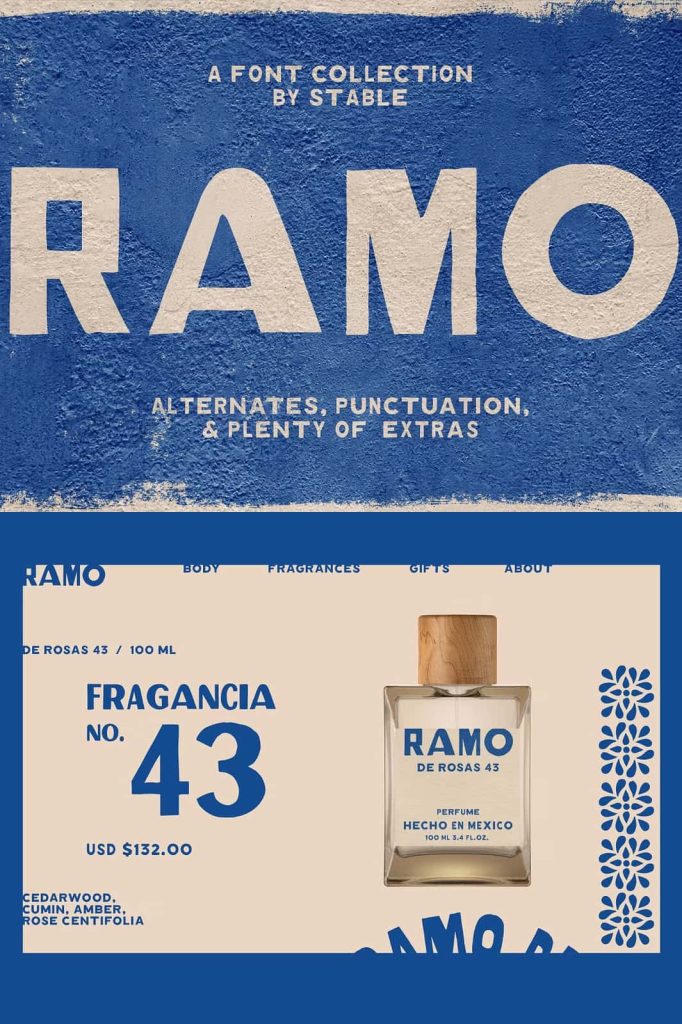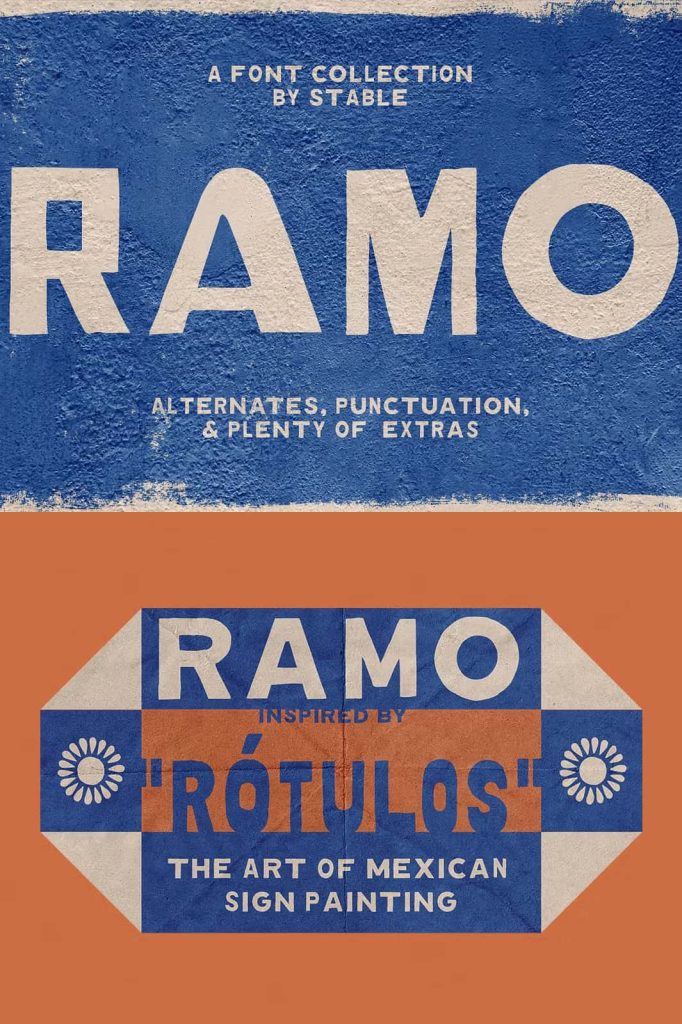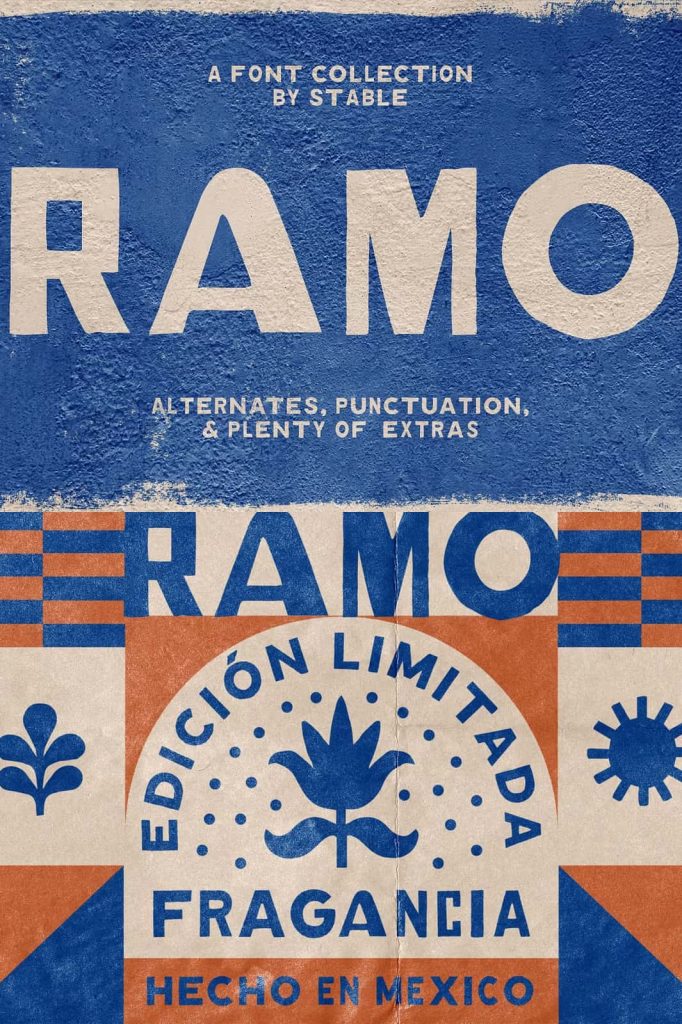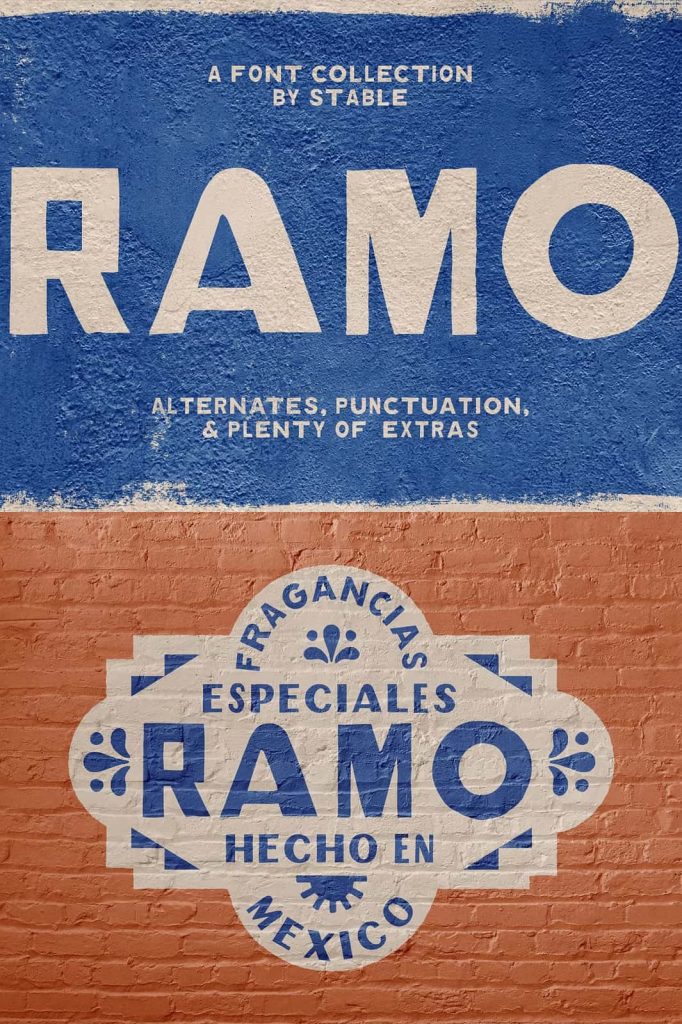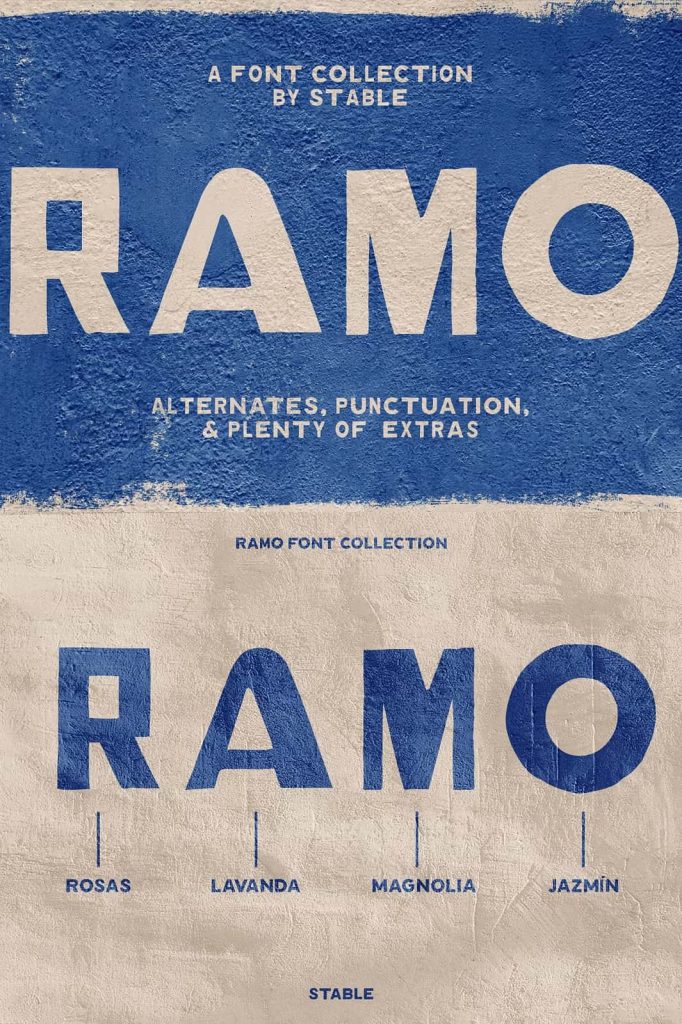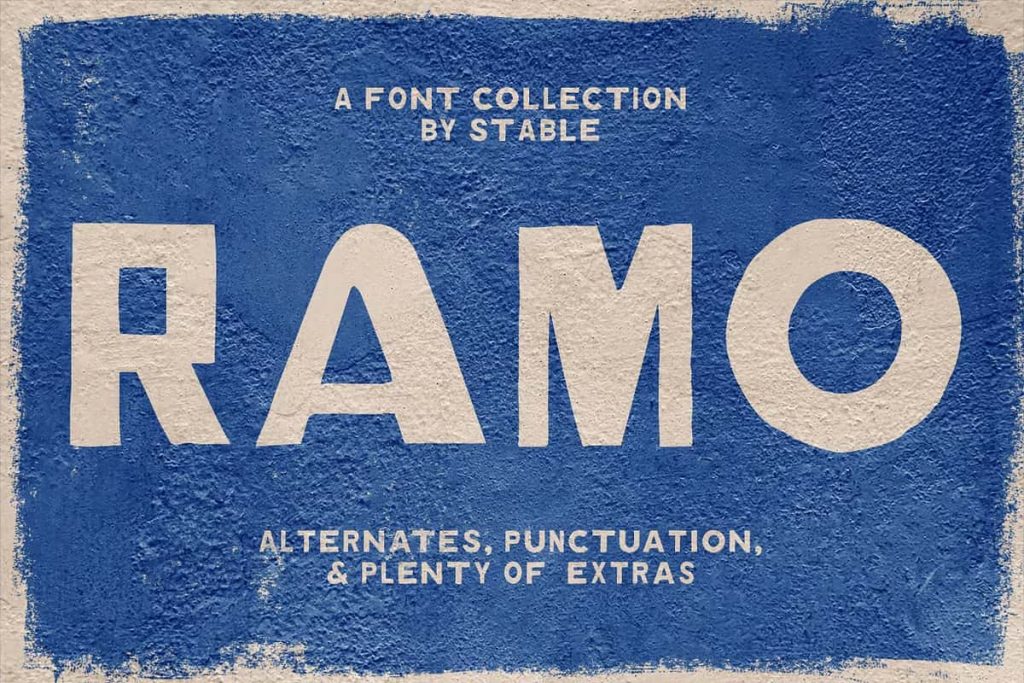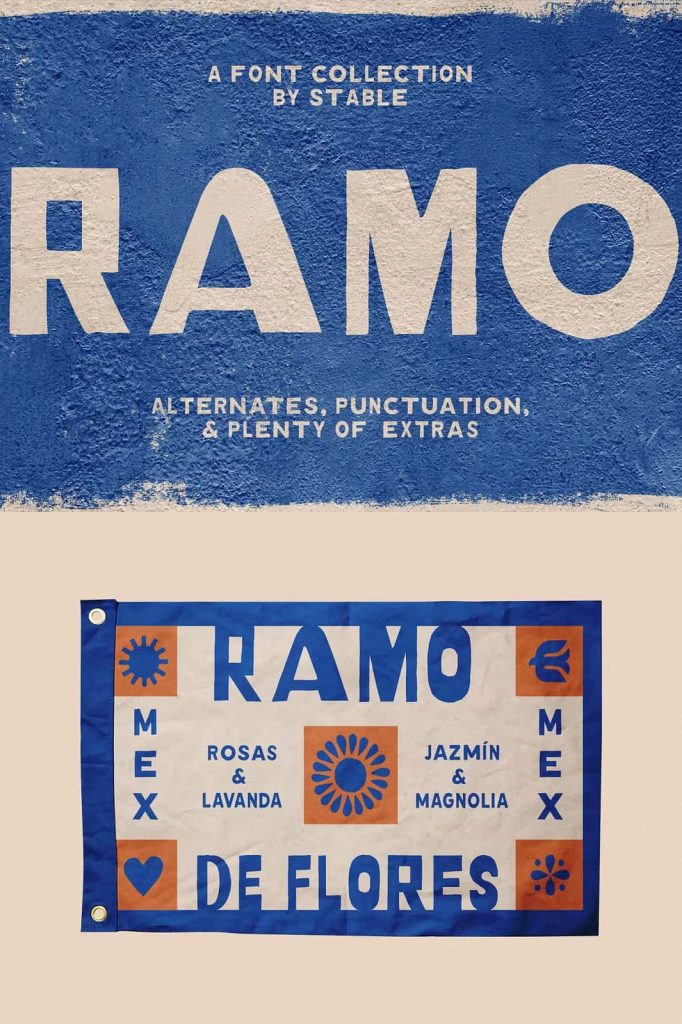
Ramo is a bespoke collection of hand-drawn fonts inspired by “Rotulos”, the art of hand-painted signage in Mexico. This set includes 4 fonts with alternates, numerals, and punctuation. It also includes over 20 decorative dingbats inspired by Mexican talavera tile. Disfruten!